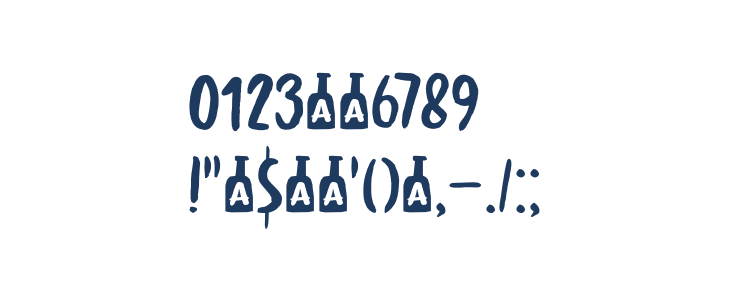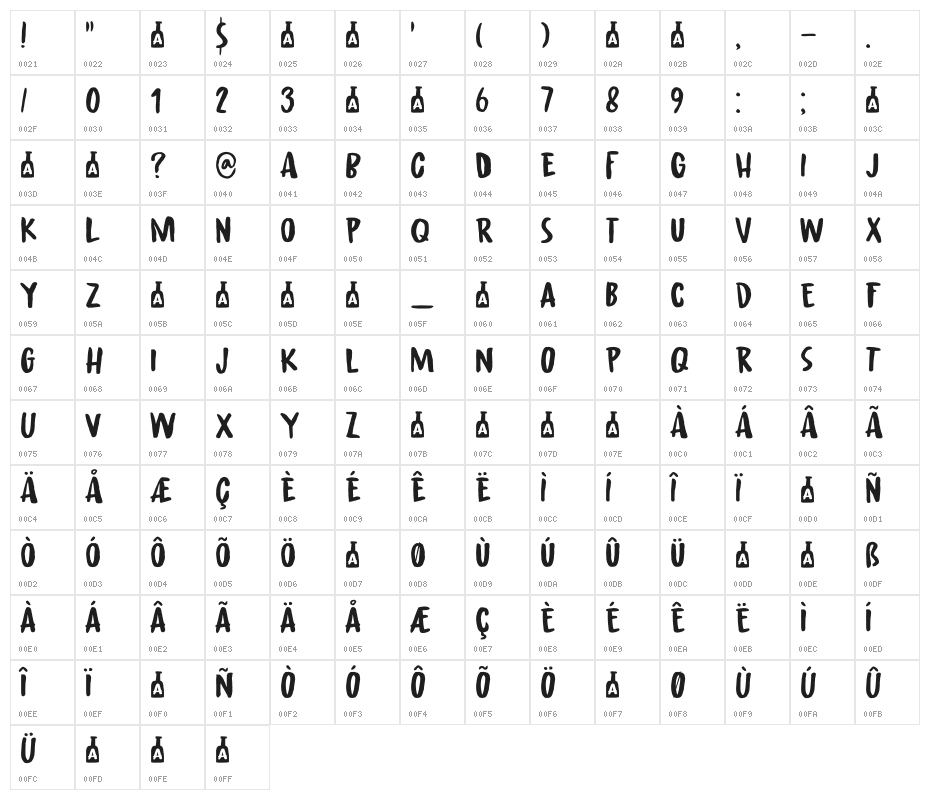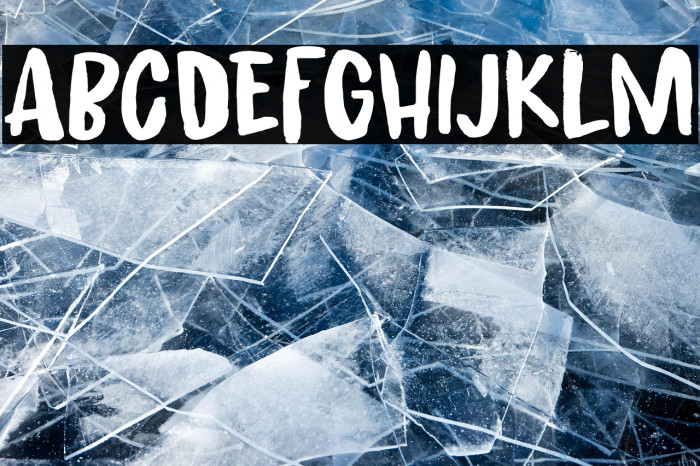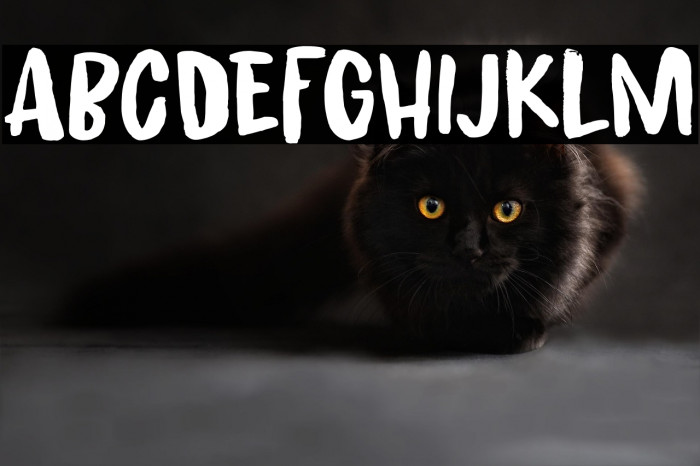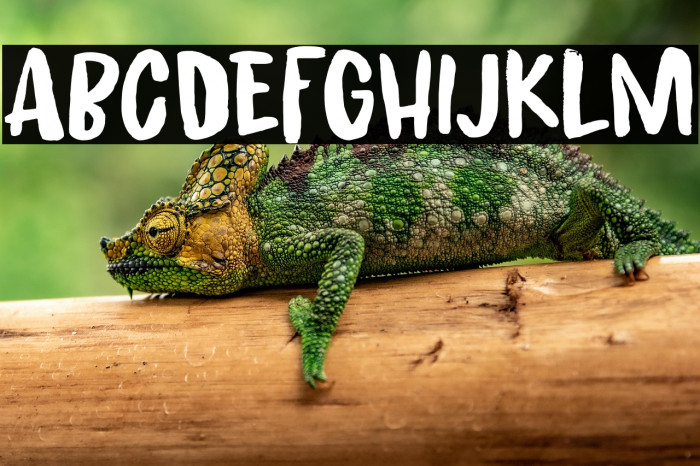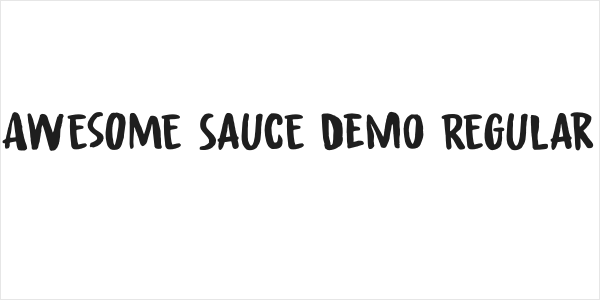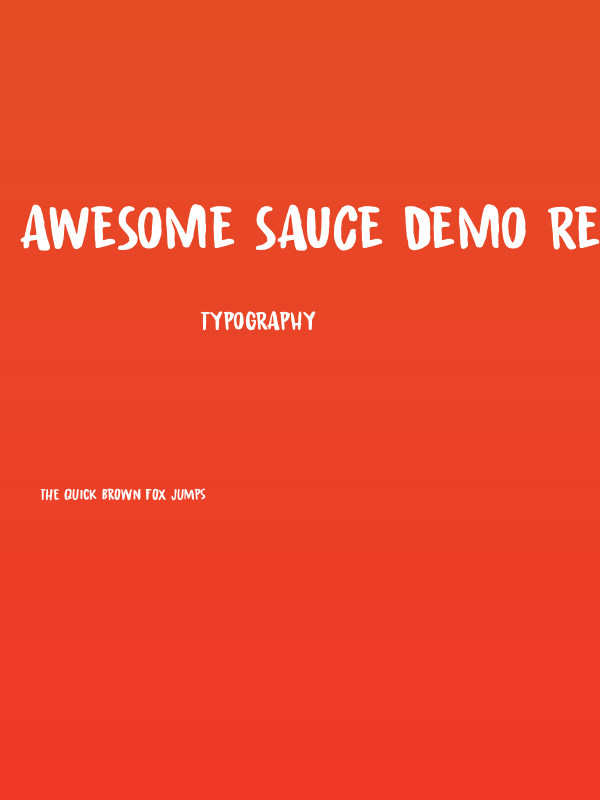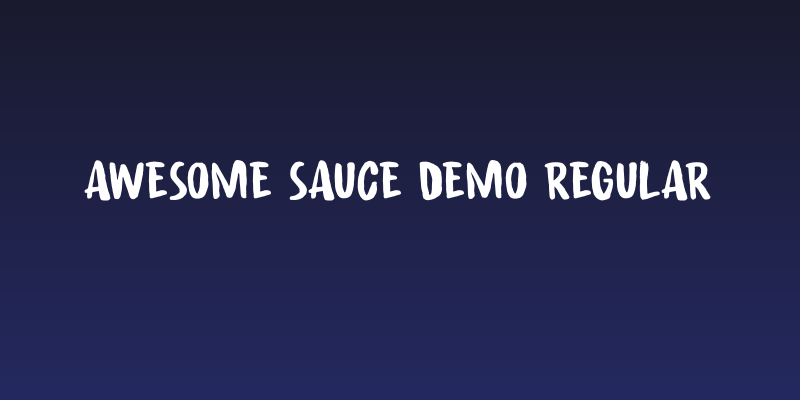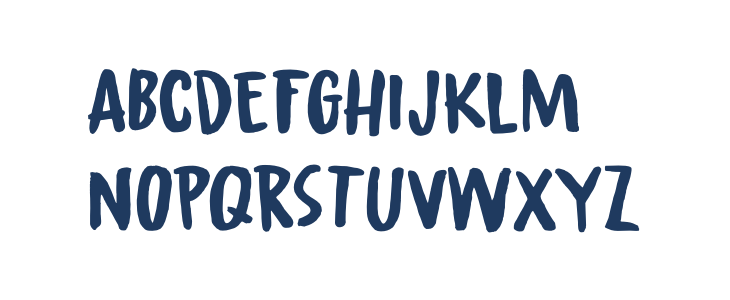
Awesome Sauce DEMO Regular Font
Awesome Sauce DEMO Regular Description
This font features a bold, hand-painted style with a playful and energetic appearance. The characters are slightly irregular, giving it a casual and artistic feel. The uppercase and lowercase letters maintain a consistent thickness, while the numbers and special characters complement the overall design with their unique flair. The font's brush-like strokes and organic shapes make it ideal for projects that require a personal touch or a creative, informal vibe.
Proposed ProjectsIdeal for posters, greeting cards, branding, and social media graphics where a creative and informal touch is desired.